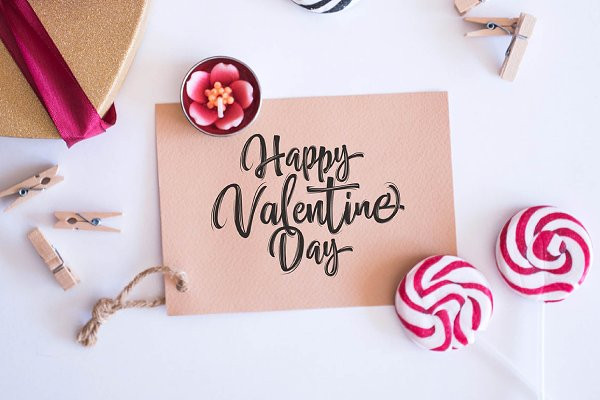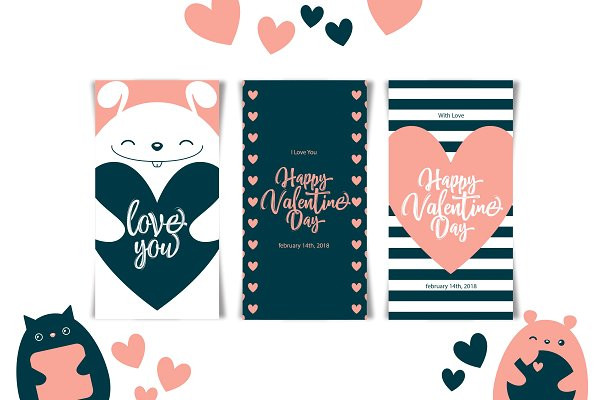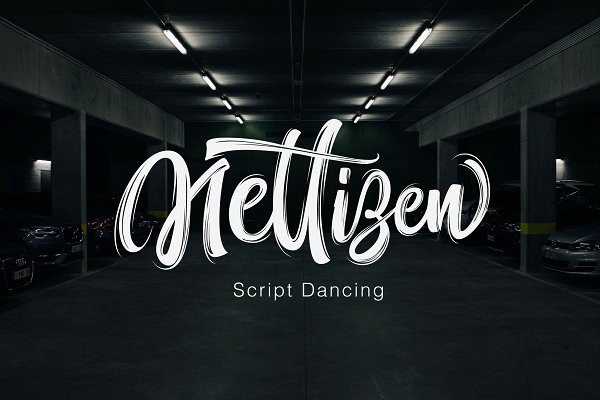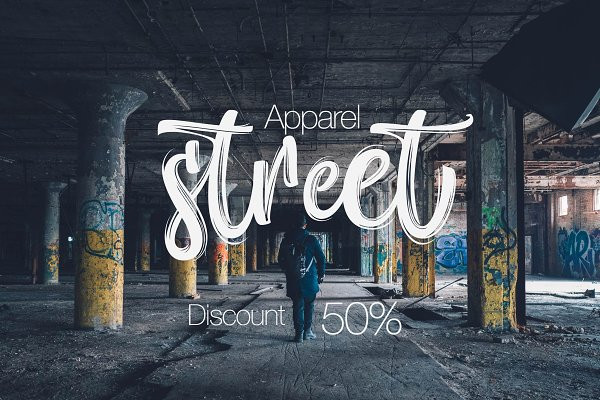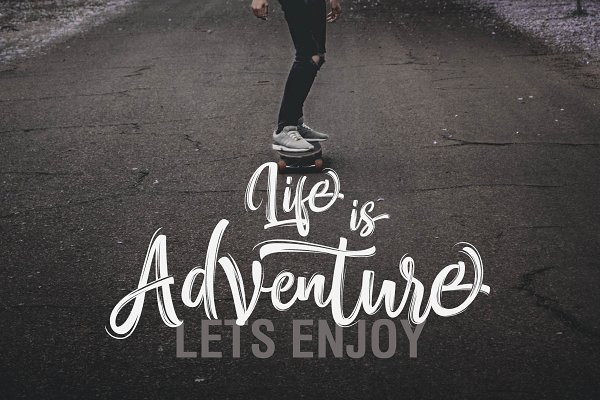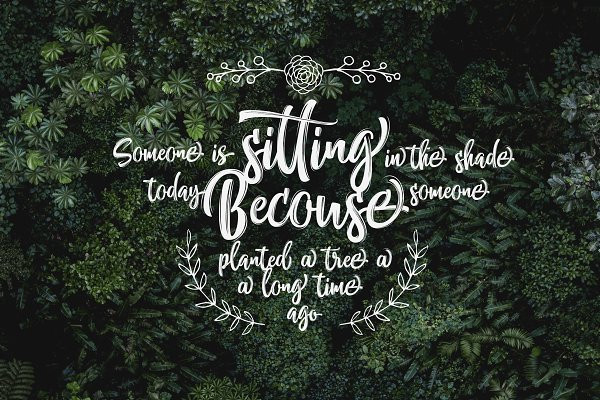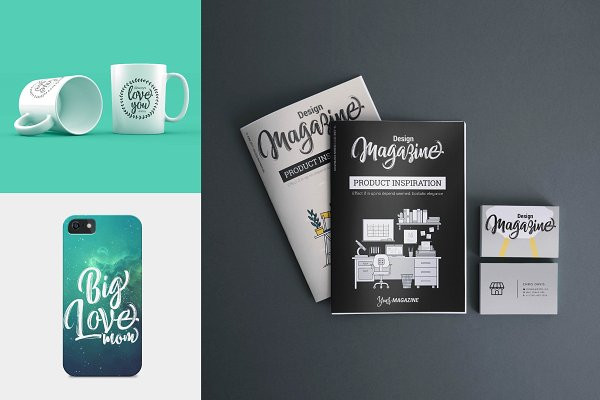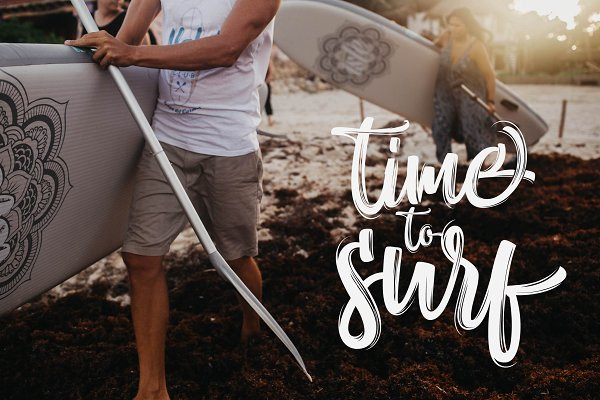
My New Font "NETTIZEN script'
NETTIZEN - Script Dancing is a beautiful Modern font Typeface, This Font will look gorgeous on all your designs, wedding invites, branding materials, logo's, t-shirt, poster, business cards, quotes and all project design other.
NETTIZEN - Script Dancing contains standard characters, lowercase, Lowercase Alternates, Uppercase, numbers, punctuation, ligatures and international glyphs.You will receive OTF & TTF files.